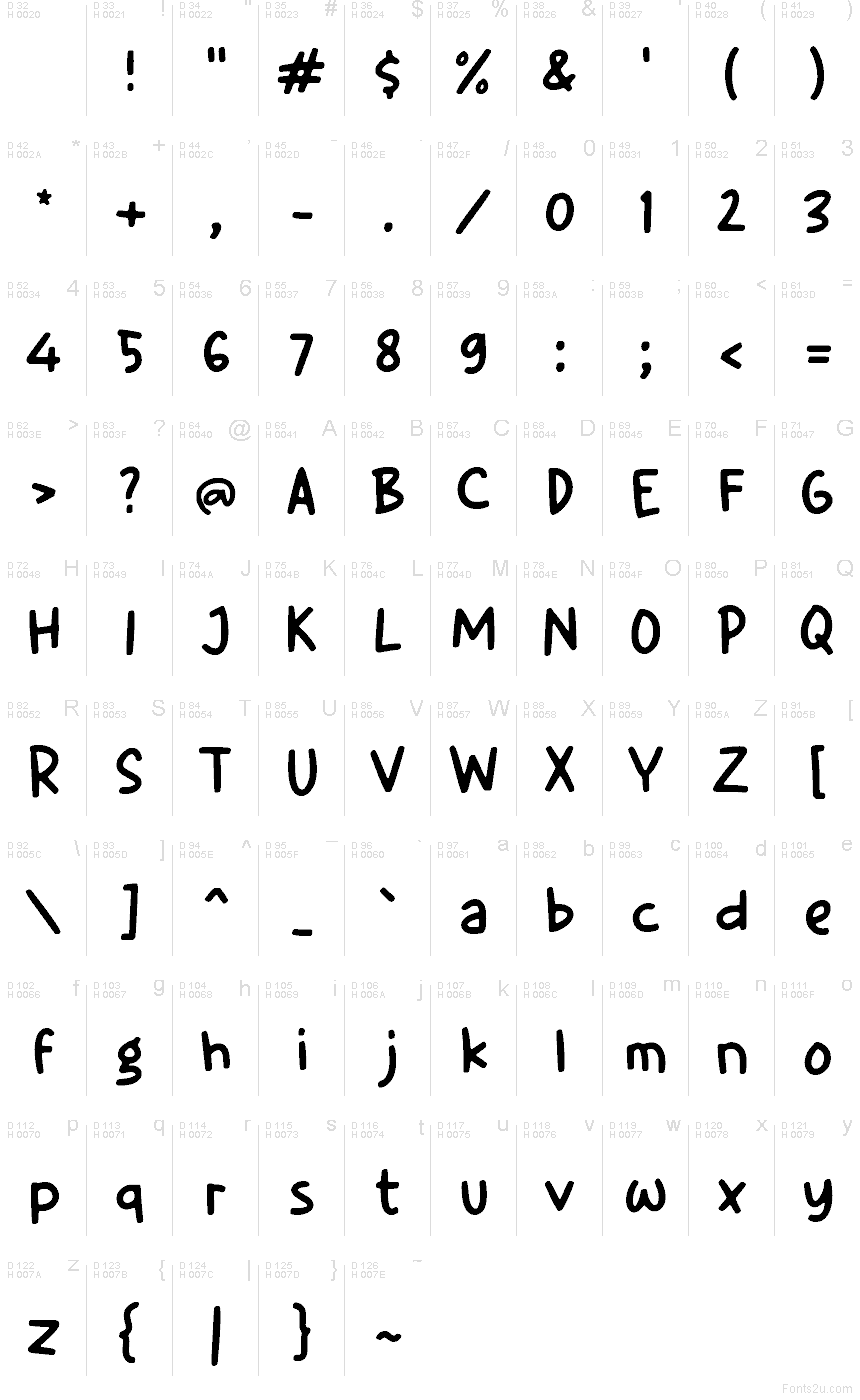
Locan
Locan font by wep is a free cartoon display typeface with a bold, hand-drawn energy that feels like it was doodled with a thick marker. The letters are rounded, slightly wobbly, and full of bounce, giving text a friendly, approachable vibe that’s easy to spot at a glance. It has that chunky, inky softness that instantly reads as playful without becoming messy or hard to read.
Using Locan, you can bring a fun, kid-focused personality to children’s books, comic panels, game menus, YouTube thumbnails, birthday invitations, classroom posters, and stickers. This free font holds up well at larger sizes where its quirky curves can really shine. Pair Locan with a clean geometric sans serif for supporting text to keep layouts readable while letting the cartoon styling grab the spotlight.